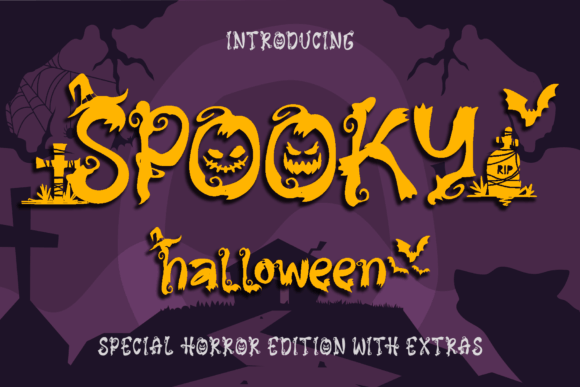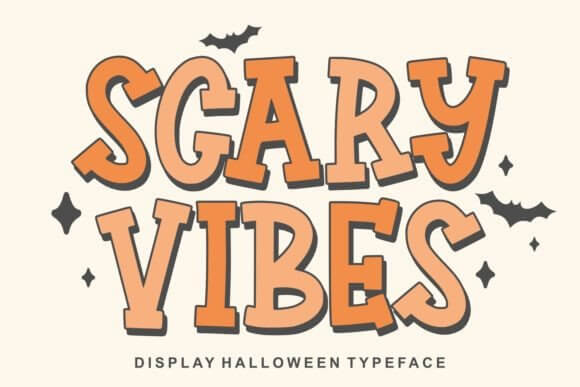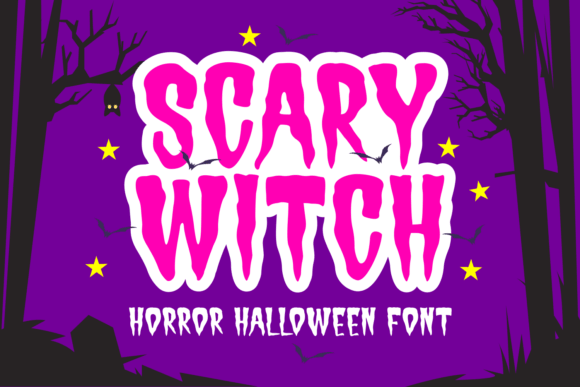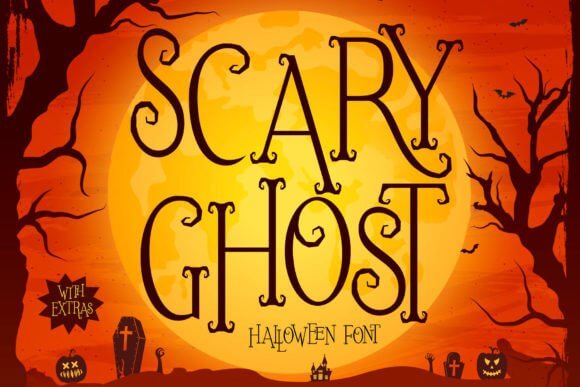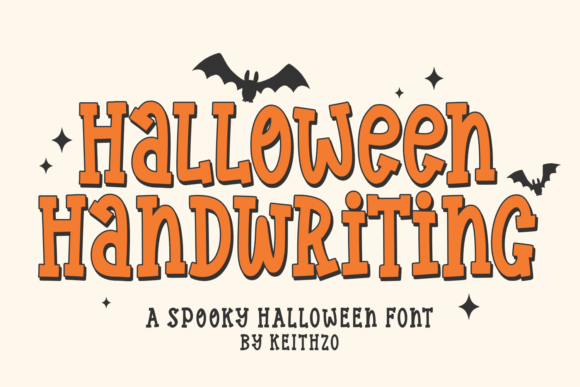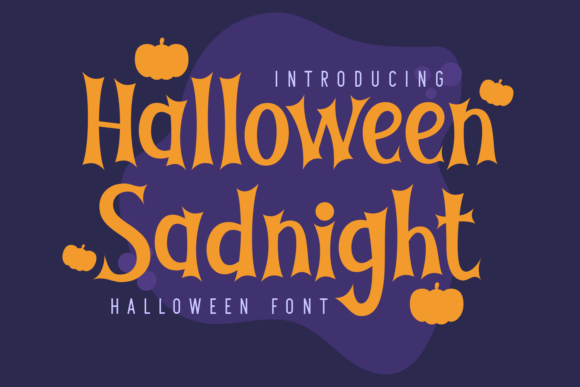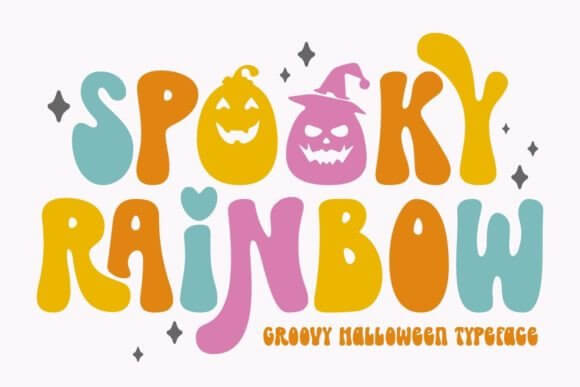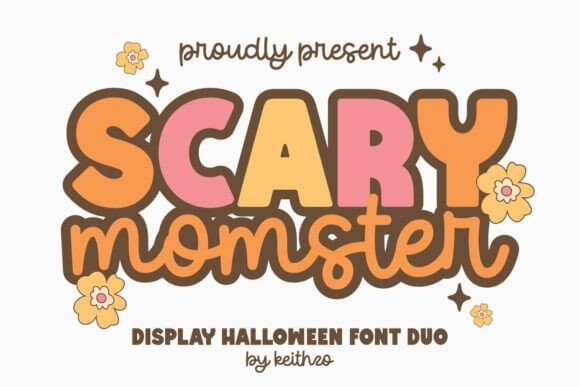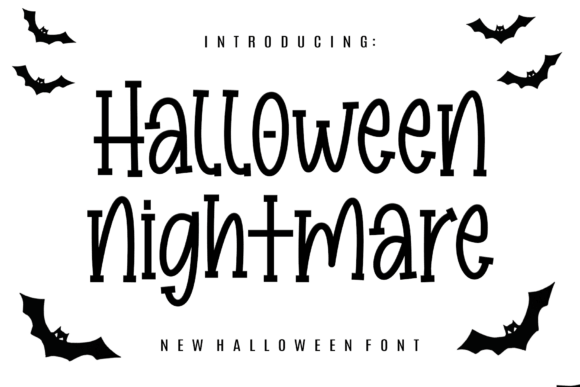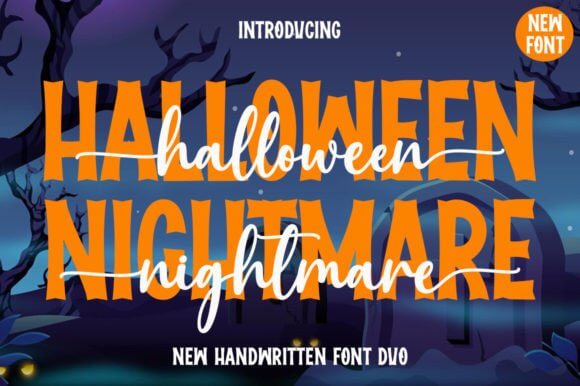
At Increobox, we keep seeing the same mess: a Halloween design can have great colors, clean layout, even solid illustrations, then the lettering wrecks the mood in about two seconds. If you’re searching for Halloween fonts free options that don’t look cheap, this roundup saves you from the endless scroll and the same recycled drippy type.
We pulled together 17 styles that cover spooky lettering, retro Halloween fonts, handwriting fonts, cute Halloween fonts, and darker horror display ideas. Some work best on posters, others suit labels, shirts, invites, mugs, classroom printables, or shop graphics. We also leaned toward readable picks, because cool type that nobody can read is just decoration pretending to help . . . and honestly, that gets old fast.
Spooky Halloween Font With Drippy Display Energy
We like this one when a design needs instant drama without turning unreadable. The drips, sharp cuts, and heavy bounce give you that bold spooky font punch for party posters, candy labels, and quick DIY signs that still look clean on screen.
Best Uses For This Font
- Party Posters – Big titles that grab attention fast.
- Candy Packaging – Fun labels for treats and favors.
- Porch Signs – Easy-to-read spooky greetings.
- Social Covers – Bold seasonal headers and promos.
Scary Vibes Font For Bold Horror Headlines
Scary Vibes feels louder, meaner, and a bit more poster-ready. If you need a Halloween poster font for big headlines, teaser graphics, or shirt art, this one lands fast and doesn’t waste space with fussy details.
Projects That Fit This Style
- Event Flyers – Strong headline impact for promos.
- T-Shirt Prints – Chunky lettering that reads well.
- Promo Banners – Quick seasonal ad graphics.
- Video Thumbnails – Sharp type for horror content.
Scary Witch Font With Playful Gothic Curves
This one swings playful instead of grim, which honestly helps when you want magic, not gore. The curves give it strong witch font energy, so it suits potion labels, classroom printables, and cute seasonal branding that still feels October-ish.
Where This Look Works Best
- Potion Labels – Great for jars and props.
- Classroom Decor – Friendly seasonal worksheets and boards.
- Craft Kits – Fun titles for DIY packs.
- Boutique Logos – Soft spooky branding with charm.
Scary Ghost Font For Cute Creepy Layouts
Scary Ghost leans soft and goofy, like a sheet ghost that steals snacks. We’d grab it for cute Halloween layouts where you want charm first, scare second – think kid merch, treat bags, and family event graphics.
Best Uses For This Font
- Kids Party Invites – Sweet, light spooky titles.
- Treat Bag Tags – Fun lettering for favors.
- Family Event Signs – Friendly Halloween directions.
- Scrapbook Pages – Playful seasonal captions.
Halloween Handwriting Font For Casual Crafts
Some Halloween fonts free sets go too theatrical. This one keeps a loose, personal vibe, and the messy strokes sell that handwriting fonts feel for planners, social captions, gift tags, and handmade sticker packs.
Good Matches For This Typeface
- Planners And Journals – Casual seasonal page titles.
- Gift Tags – Personal notes with October flair.
- Sticker Sheets – Small text that still feels fun.
- Shop Notes – Handmade packaging inserts.
Halloween Sadnight Font With Dark Retro Mood
Sadnight looks moody and slightly retro, like old VHS horror art left in a dusty shop window. If you want a retro spooky font for posters, thrift-core tees, or darker mood boards, this one does the job with zero fluff.
Projects That Fit This Style
- Retro Posters – Nostalgic horror headlines.
- Thrift Style Apparel – Graphic tees with attitude.
- Dark Mood Boards – Strong visual theme text.
- Music Event Art – Gritty promotional graphics.
Spooky Rainbow Font For Colorful October Art
Yep, spooky can go bright. Spooky Rainbow mixes Halloween attitude with fun color-loving shapes, and that makes it great for colorful spooky typography, kids’ party decor, and playful shop graphics that skip the usual black-and-red rut.
Where This Look Works Best
- Kids Party Decor – Cheerful spooky signage.
- Rainbow Stickers – Cute merch and planner sets.
- Teacher Resources – Friendly classroom headers.
- Fun Store Posts – Seasonal promo text with pop.
Scary Momster Font With Quirky Monster Charm
The name alone is a riot, and the letterforms back it up with chunky, oddball charm. We think this works best when you want quirky Halloween letters for school projects, mom-life shirts, mugs, or punny seasonal stickers.
Best Uses For This Font
- Mom-Life Shirts – Funny seasonal apparel text.
- School Projects – Bold titles kids can read.
- Mugs And Tumblers – Playful phrase designs.
- Novelty Stickers – Weird little captions that sell.